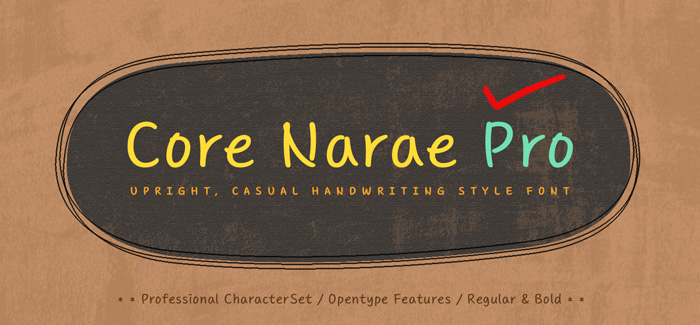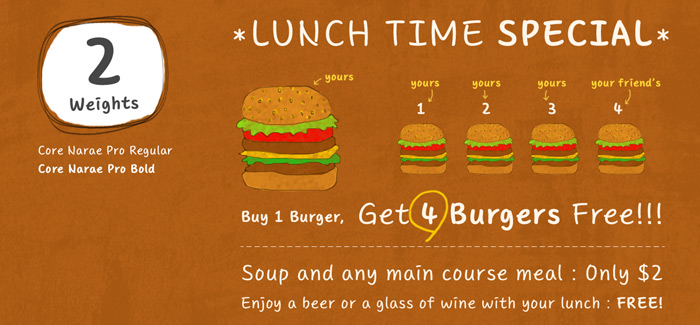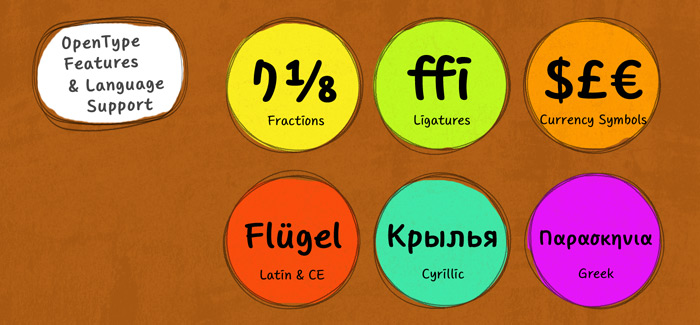
Core Narae Pro font
Core Narae Pro font by the Korean designers Hyun-Seung Lee, Dae-Hoon Hahm, and Min-Joo Hamis (S-Core foundry) is an upright casual Sans Serif script with hand-crafted glyphs. The typeface has vivid and friendly appearance thanks to its remarkable rhythmic structure and curved strokes. Excellent for headlines, posters, as well as for arrays of text, wherever a hint of playfulness is needed.
Core Narae Pro font is an updated and enhanced version of Core Narae font released in 2012. This new version offers more OpenType features including Proportional Figures, Tabular Figures, Numerators, Denominators, Superscript, Scientific Inferiors, Subscript, Fractions and Standard Ligatures. One more weight is added (now there are two weights available – Regular & Bold) and the kerning is improved. Core Narae Pro font now includes support for a wide range of languages – Central European, Greek, Cyrillic and Eastern European.
Supported languages: Albanian, Basque, Belarusian, Bosnian, Breton, Catalan, Croatian, Cyrillic, Czech, Danish, Dutch, Esperanto, Estonian, Faroese, Finnish, French, Frisian, Galician, German, Greek Modern, Hungarian, Icelandic, Italian, Lithuanian, Malagasy, Maltese, Norwegian, Polish, Portuguese, Romanian, Russian, Serbian, Slovak, Slovenian, Spanish, Swedish, Turkish, Welsh